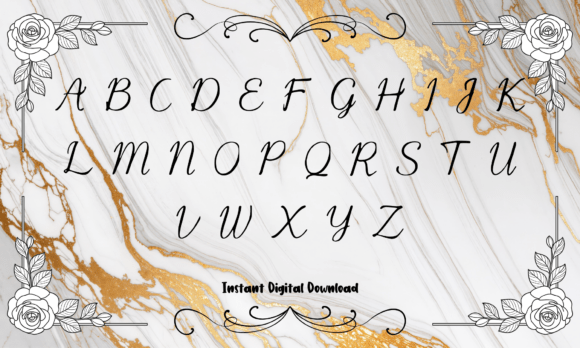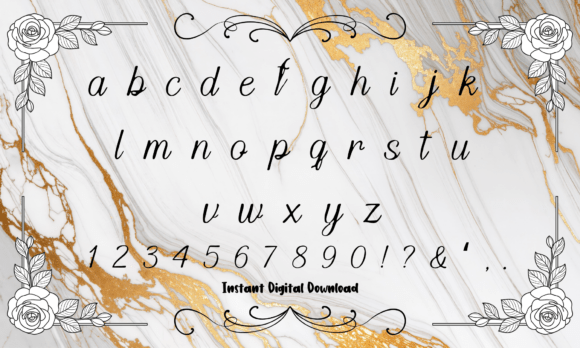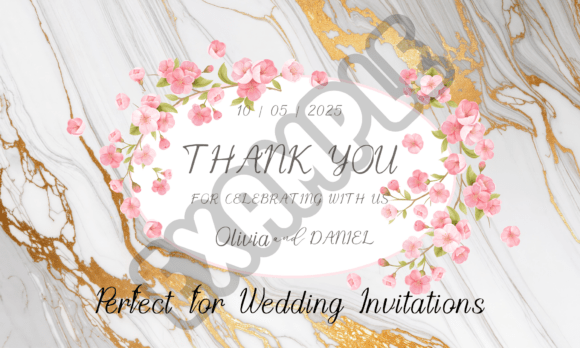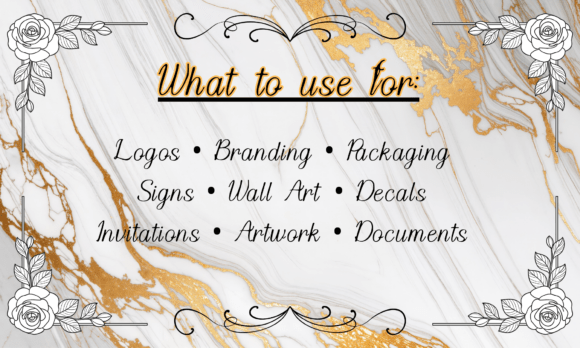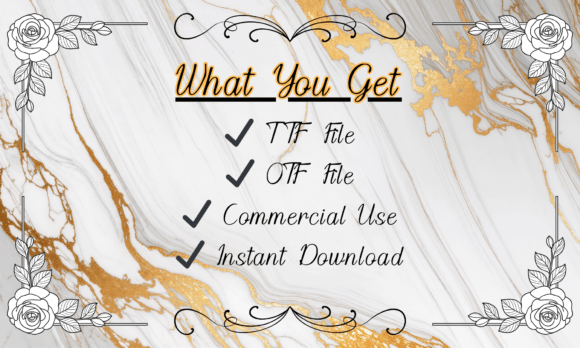
Elegant Wedding Font: Add Timeless Romance and Sophistication to Your Designs
Are you looking for a font that exudes elegance, romance, and sophistication? Look no further than the Elegant Wedding Script, a beautifully flowing calligraphy font perfect for weddings, branding, and creative projects. This stunning font is designed to add a touch of timeless romance and luxury to your designs, making it ideal for various applications, from wedding invitations to social media graphics.
The Perfect Font for Wedding Designs
Weddings are a celebration of love and commitment, and the Elegant Wedding Script font is designed to capture the essence of this special day. With its graceful curves and delicate strokes, this font is perfect for creating beautiful wedding invitations, stationery, and other wedding-related designs. Whether you’re a designer, crafty DIY bride, or small business owner, this font is sure to impress.
The Elegant Wedding Script font is designed to be versatile and can be used for various wedding-related projects, including:
- Wedding Invitations & Stationery: Create stunning wedding invitations, save-the-date cards, and other stationery that sets the tone for the big day.
- Logos & Small Business Branding: Use the Elegant Wedding Script font to create elegant logos, business cards, and other branding materials that reflect your business’s sophisticated personality.
- Signs, Decals & Wall Art: Add a touch of elegance to signs, decals, and wall art with this beautiful font, perfect for weddings, events, and home decor.
- Social Media Graphics: Create eye-catching social media graphics, such as wedding announcements, quotes, and inspirational messages, that showcase your elegant style.
- Quotes & Personalized Gifts: Use the Elegant Wedding Script font to create beautiful quotes, monograms, and personalized gifts, such as wedding favors, candles, and picture frames.
Why Choose the Elegant Wedding Script Font?
The Elegant Wedding Script font offers several benefits that make it an excellent choice for designers and crafters:
- Unique and Elegant Design: The font’s beautiful, flowing script design sets it apart from other fonts, ensuring your designs stand out.
- High-Quality and Legible: The font is designed to be clear and legible, even at small sizes, making it perfect for various applications.
- Versatile: The Elegant Wedding Script font can be used for various projects, from wedding designs to branding and social media graphics.
Tips for Using the Elegant Wedding Script Font
To get the most out of the Elegant Wedding Script font, consider the following tips:
- Pair with Complementary Fonts: Pair the Elegant Wedding Script font with complementary fonts to create a unique and visually appealing design.
- Use for Headlines and Titles: Use the Elegant Wedding Script font for headlines and titles to add a touch of elegance and sophistication.
- Don’t Overuse: Use the font judiciously to avoid overwhelming your design. Balance is key to creating a beautiful and effective design.
The Elegant Wedding Script font is a beautiful and versatile font that can add timeless romance and sophistication to your designs. With its elegant design, high-quality, and legibility, this font is perfect for various applications, from wedding invitations to social media graphics. Whether you’re a designer, crafty DIY bride, or small business owner, this font is sure to impress. So why wait? Download the Elegant Wedding Script font today and start creating stunning designs that exude elegance and sophistication.